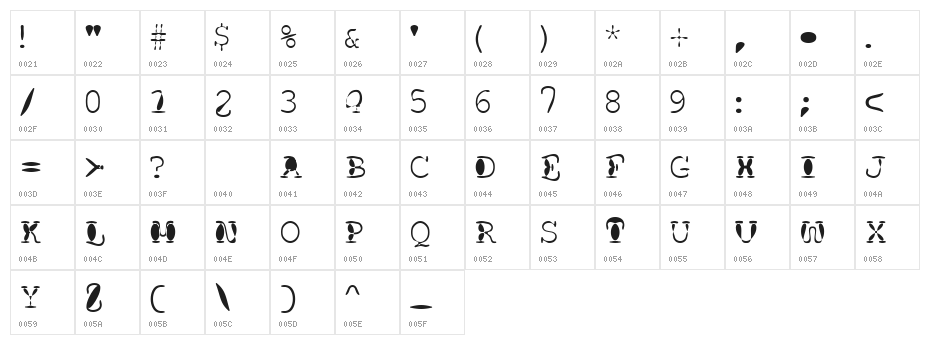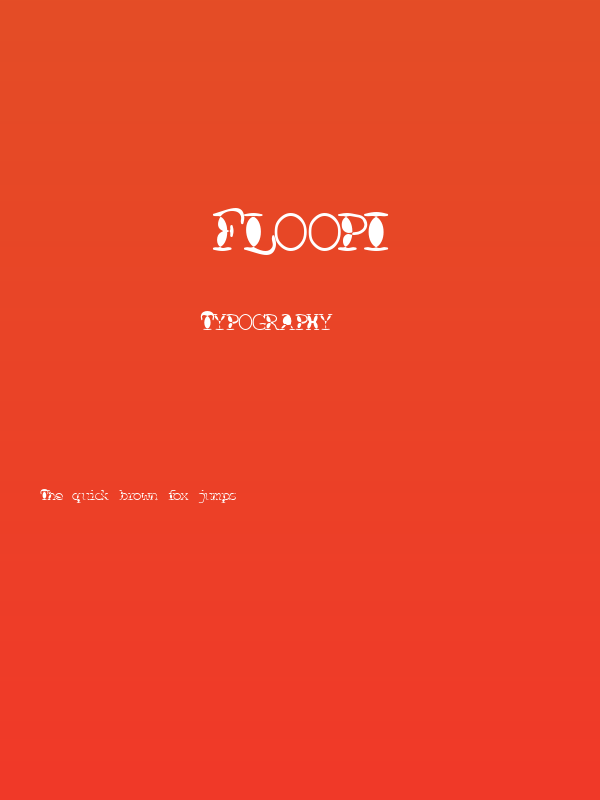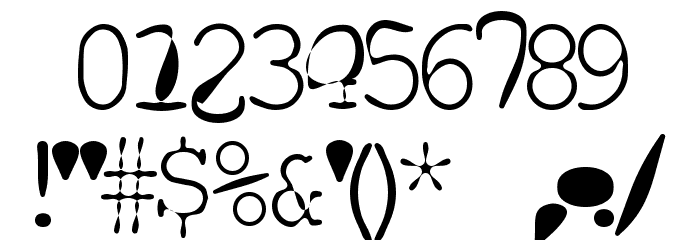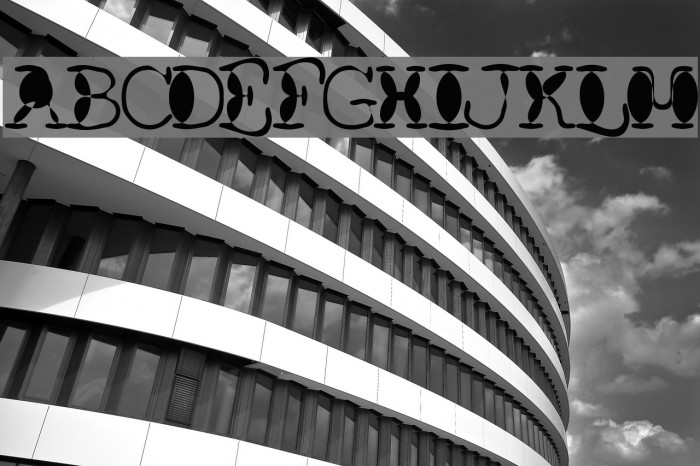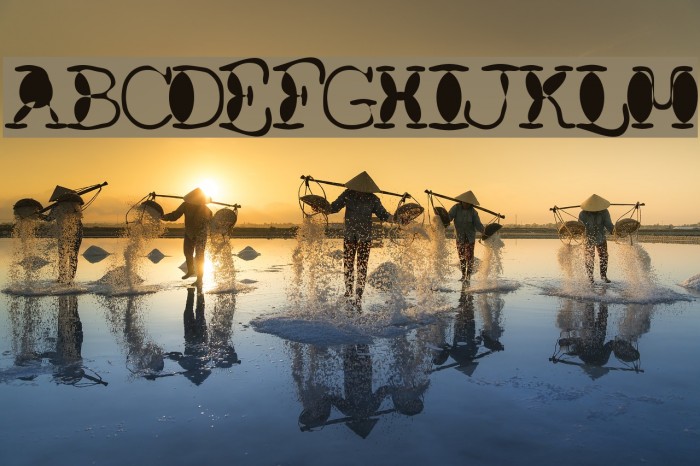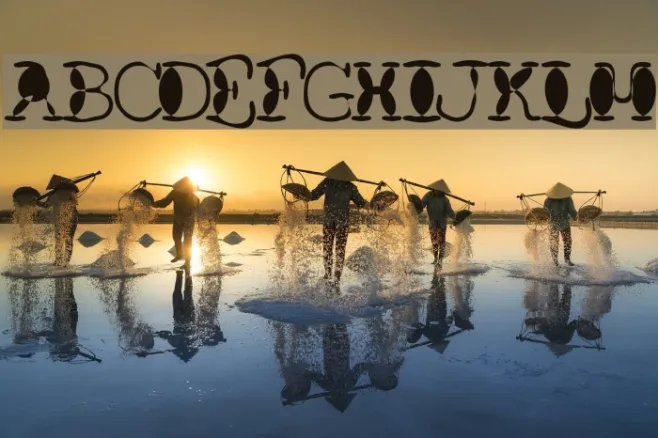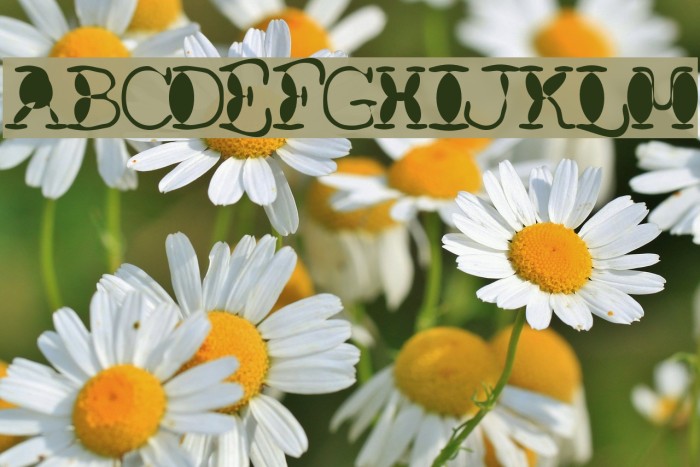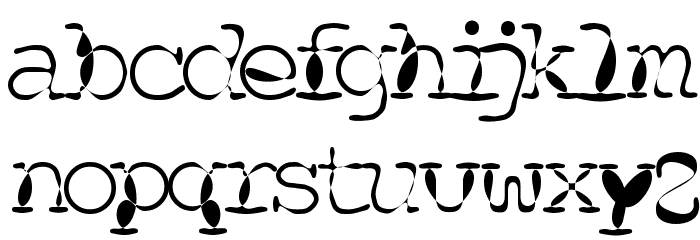
Floopi Font
Floopi Description
This font features a highly decorative and artistic style, characterized by its unique and playful design. The letters are formed with bold, rounded shapes that create a whimsical and eye-catching appearance. The strokes are thick and vary in width, contributing to a dynamic and lively look. The font includes both uppercase and lowercase letters, numbers, and a variety of special characters, all maintaining the same playful aesthetic. Its distinctive style makes it stand out, making it ideal for creative and unconventional design projects.